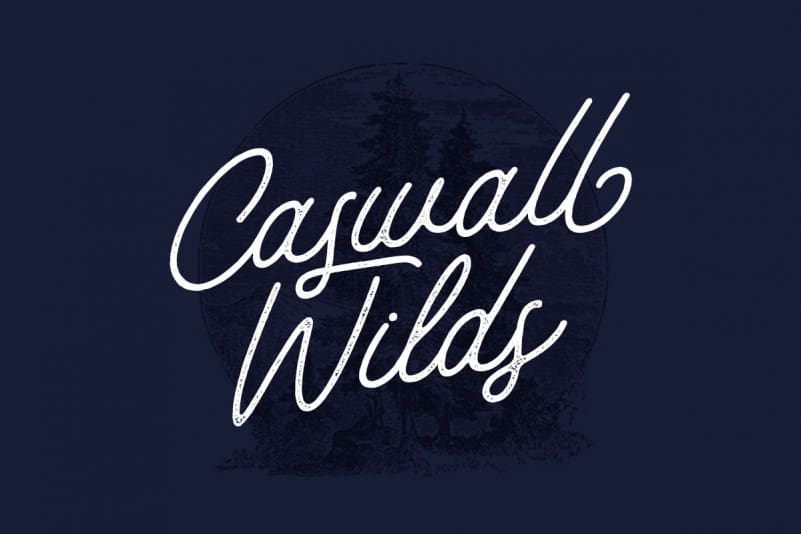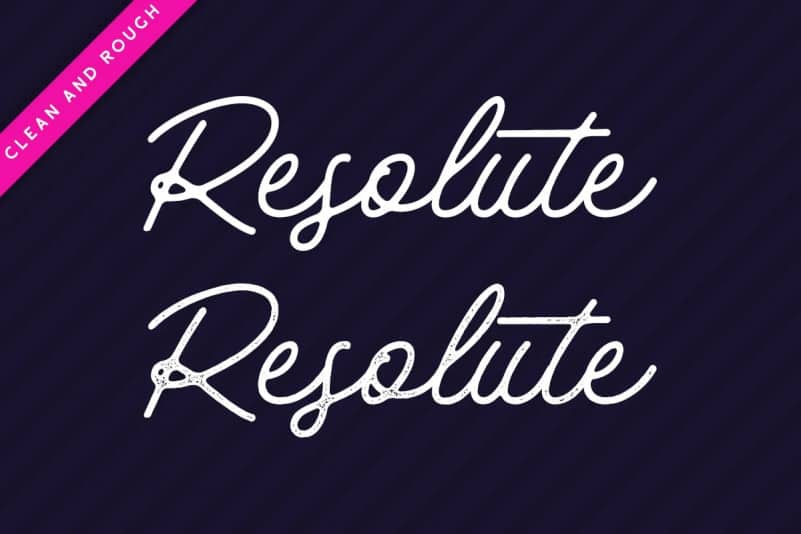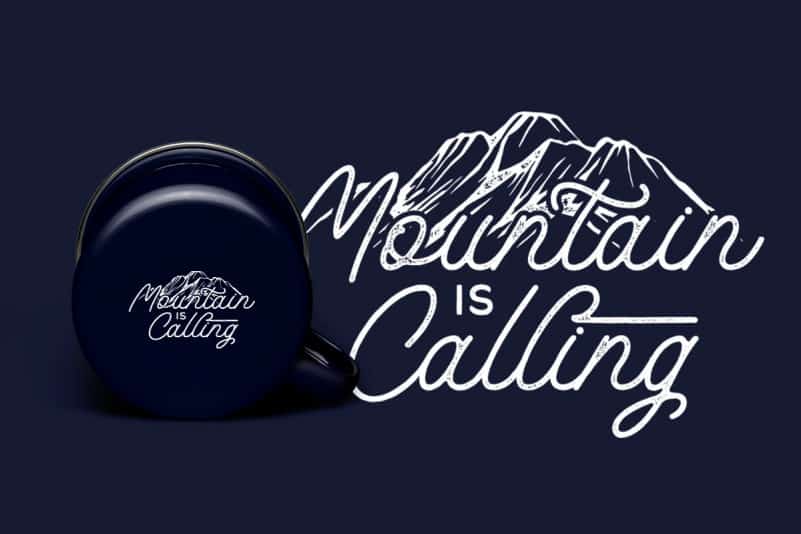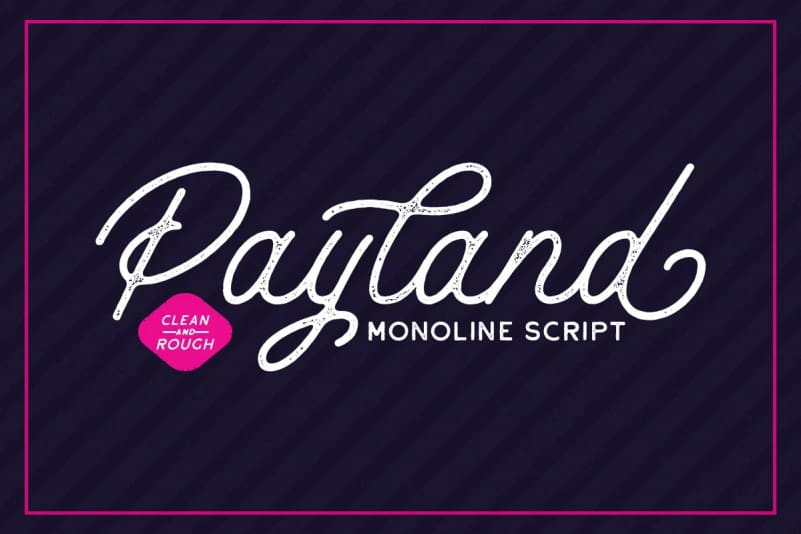
Payland Script Font
Payland Script Font consisting of a fashionable sophisticated signature-style script with it’s own unique curves and an elegant inky flow. This font is perfect for you who want to make logotype or quotes using monoline style font. Payland contains 2 fonts style, regular one if you’re big fan of simplicity and clean design, and rough one for you who want a little bit of vintage touch on your design, on top op that, this font have up to 11 stylistic alternate! So, what are you waiting for? grab this font and use it for your next project right away.